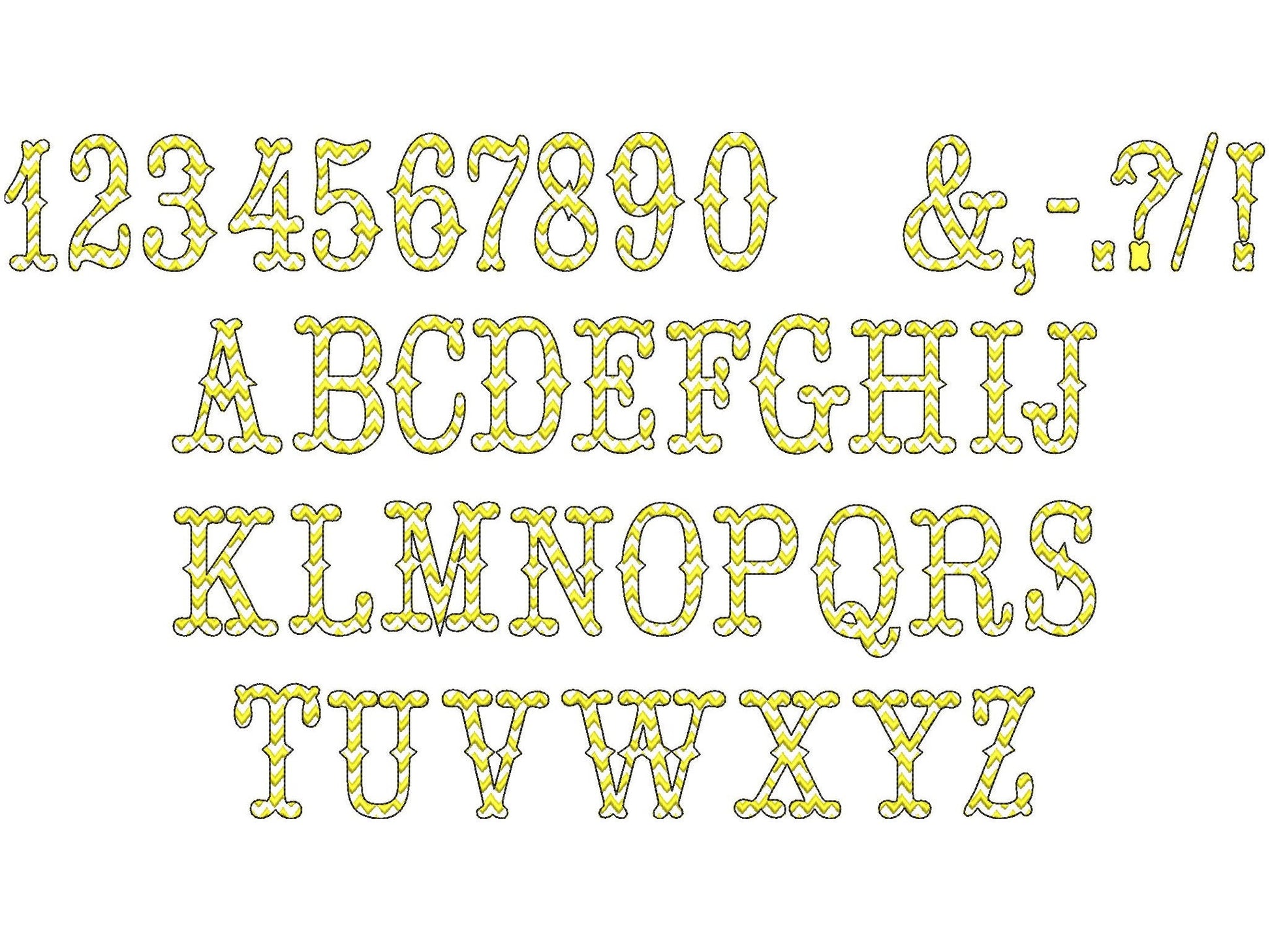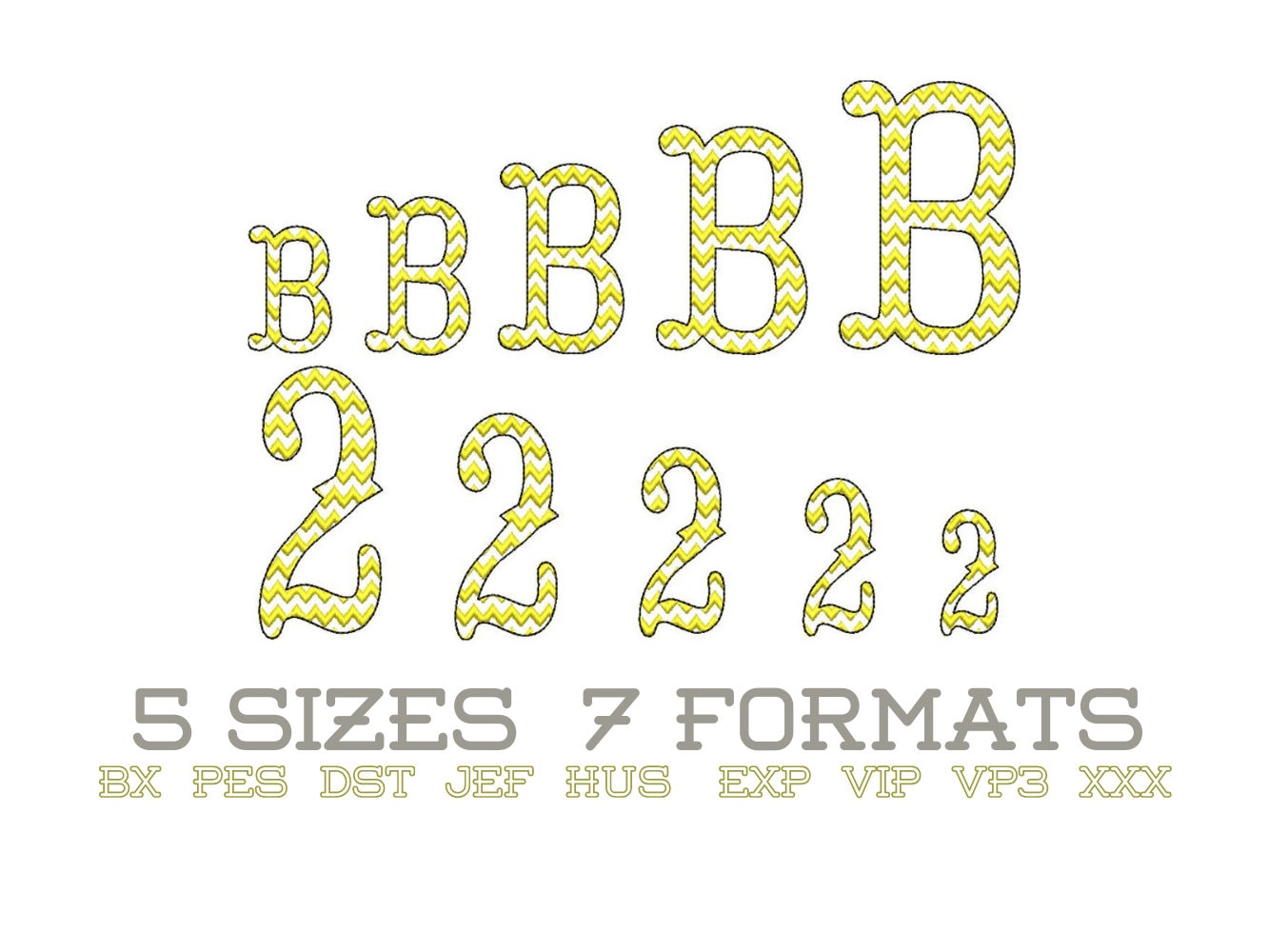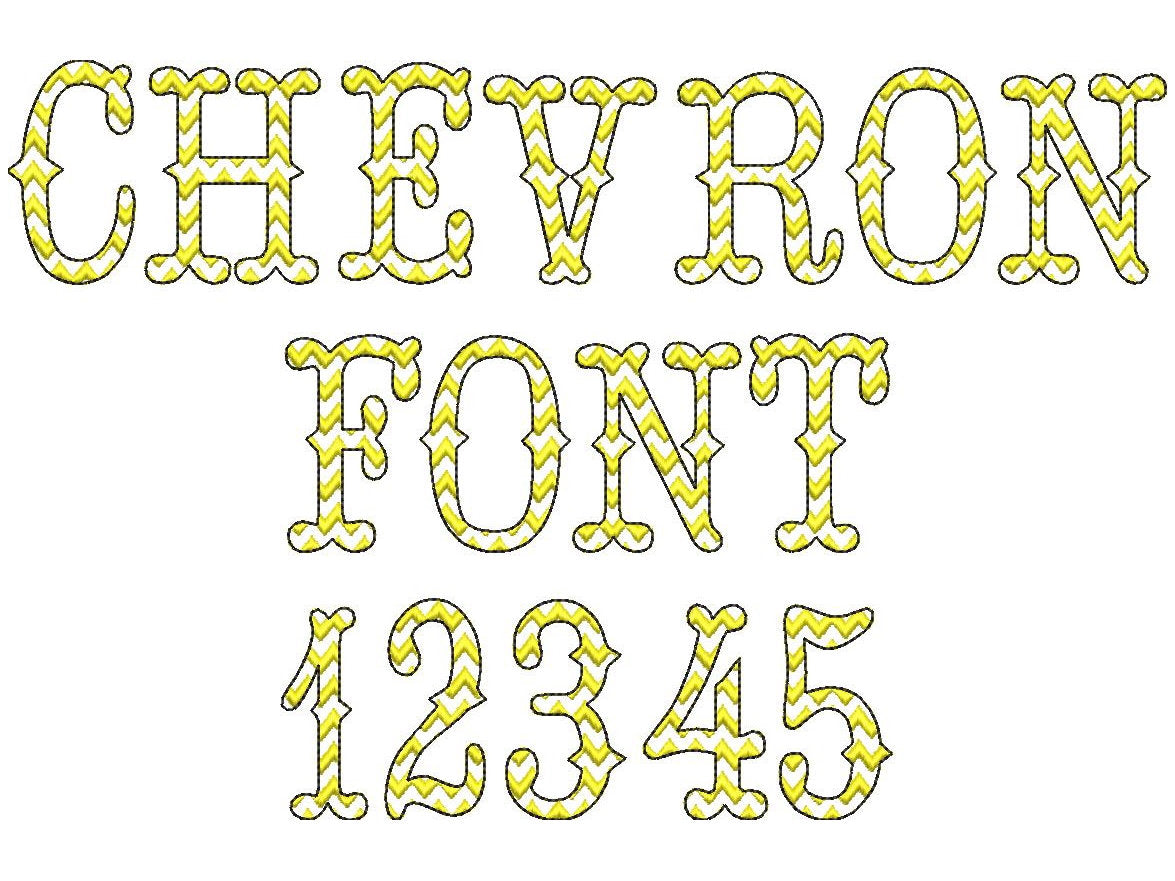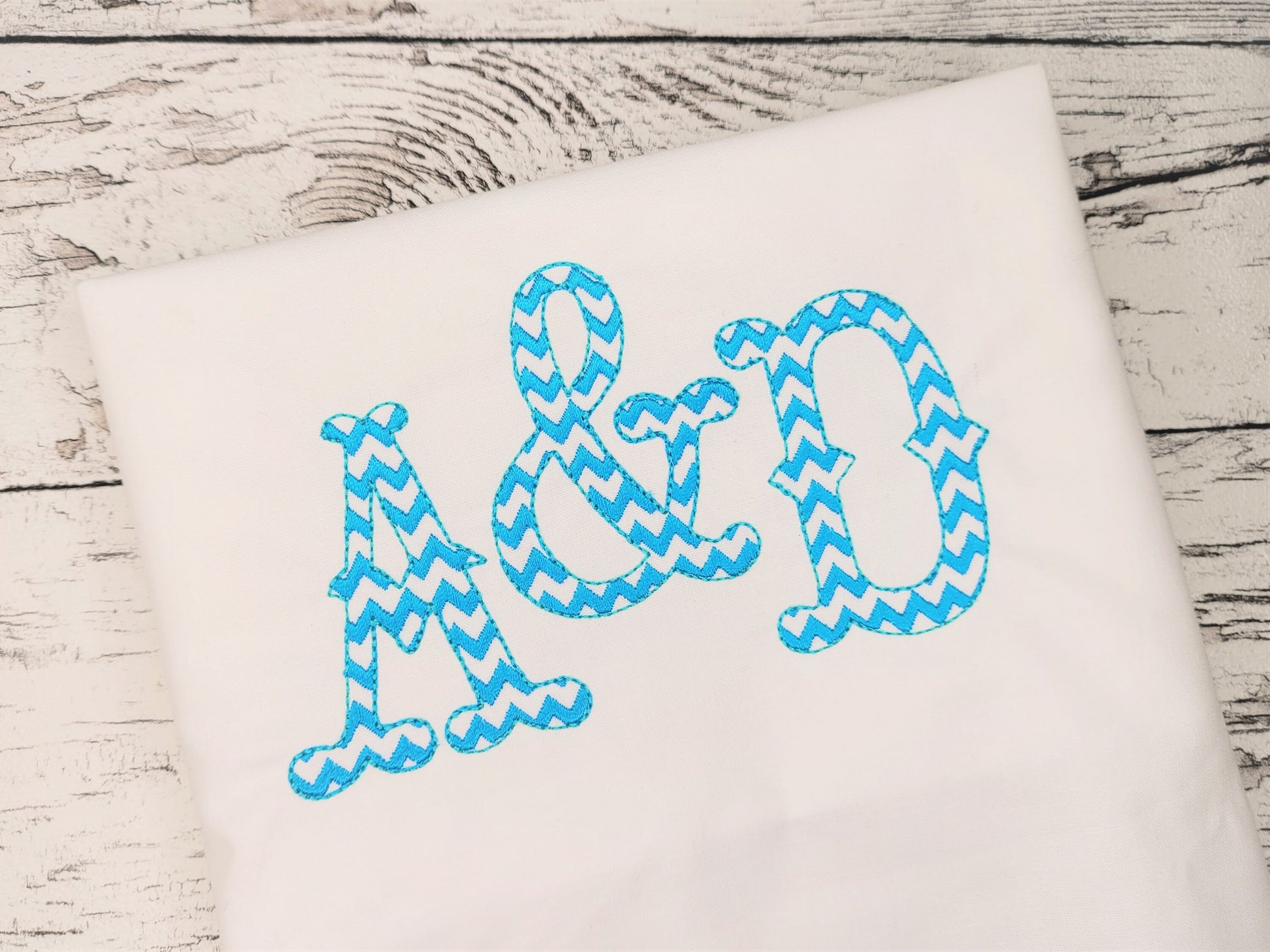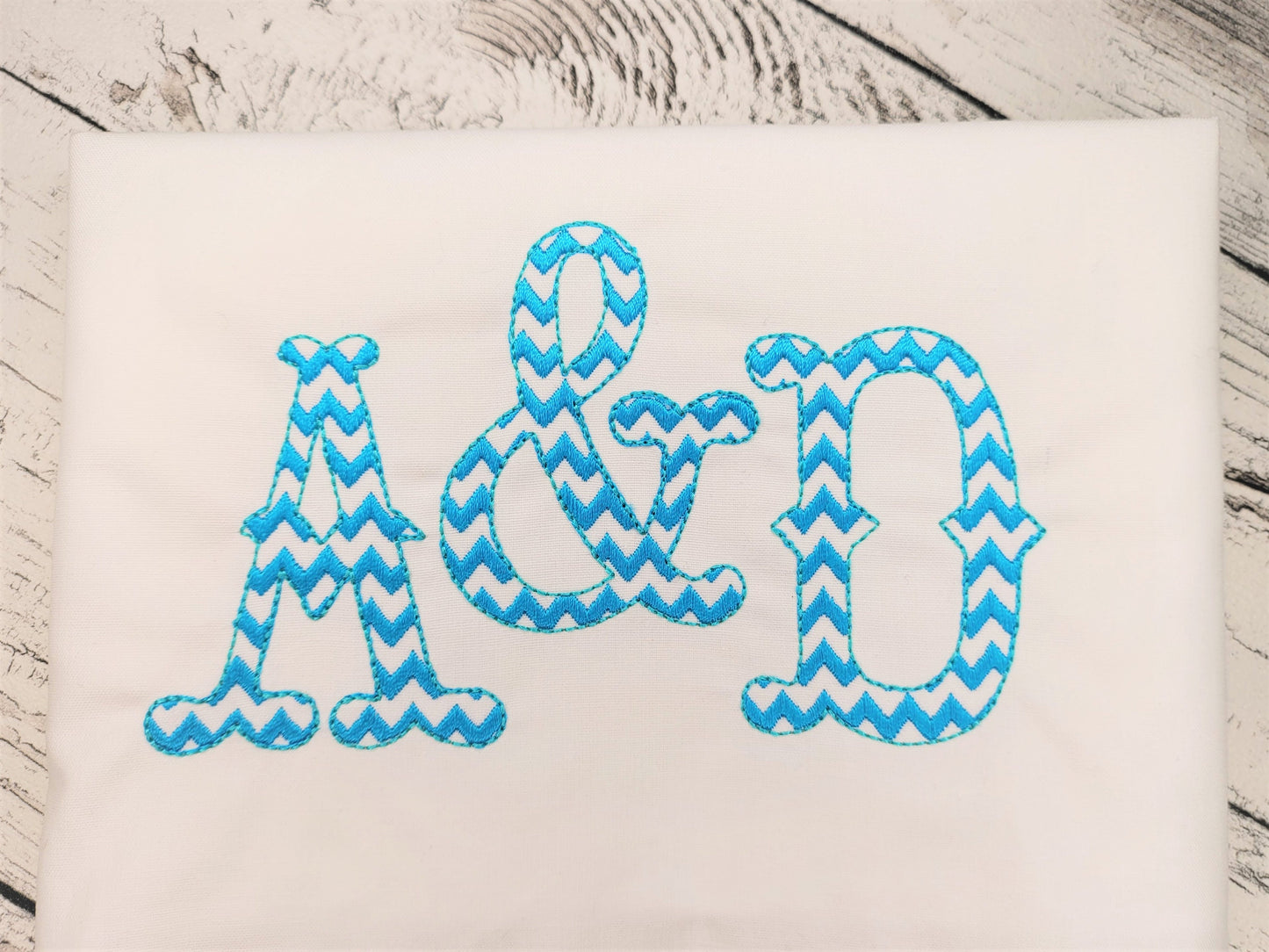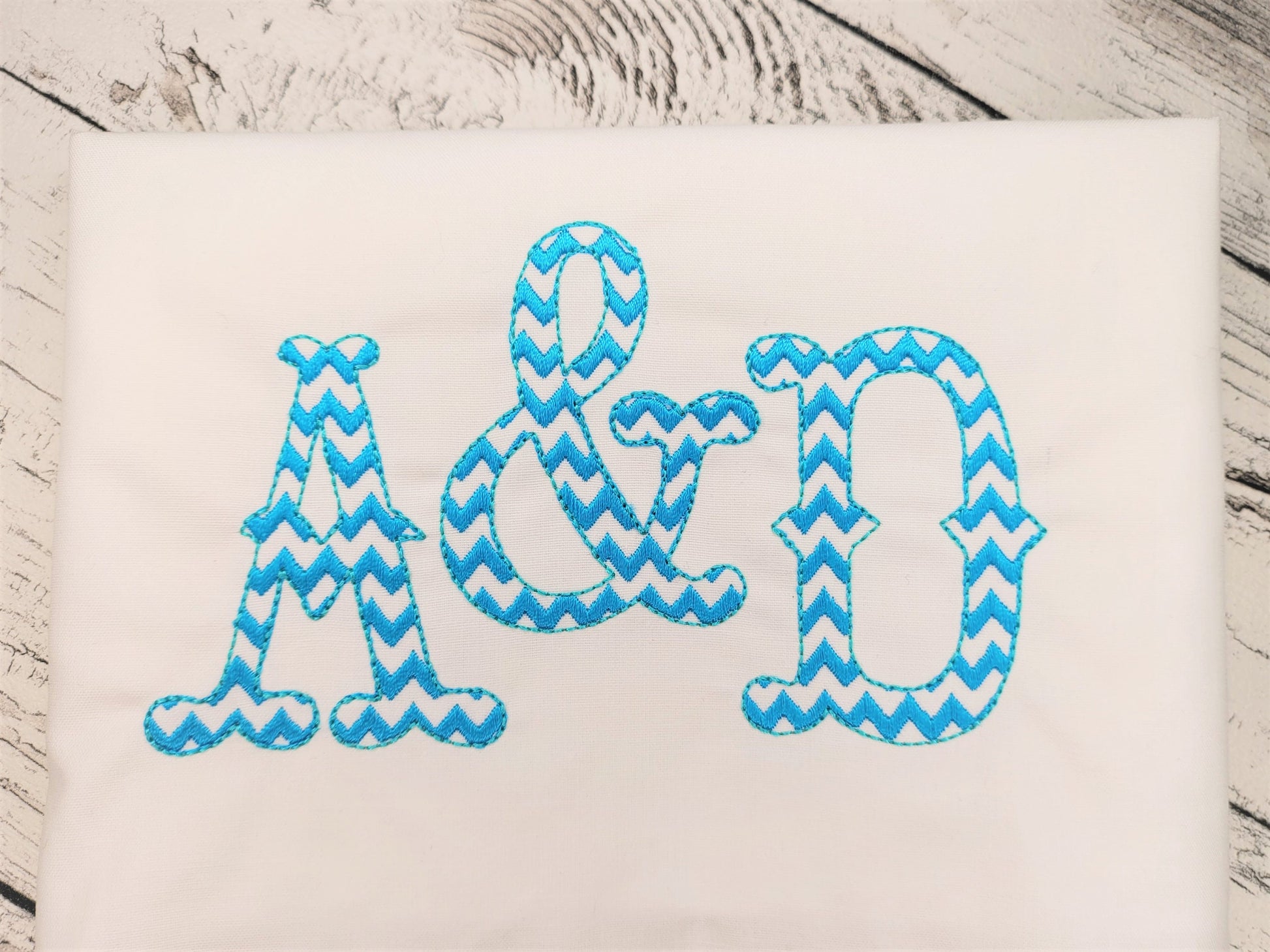
Chevron Ric Rac Western Font Light Sketch Outline
A quick stitch: the chevron lines are stitched inside each letter and the fabric shows through. Five sizes: 1.8, 2.3, 2.7, 3.3 and 3.9 inches.
- Chevron ric rac western font
- Uppercase A-Z, numbers 0-9, punctuation